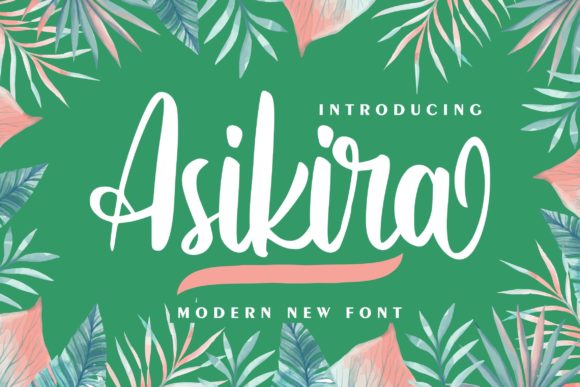
Introducing Asikira Font: The Bold and Beautiful Handwritten Font
Are you tired of using the same old fonts in your design projects? Do you want to add a touch of uniqueness and personality to your work? Look no further than Asikira Font, a bold and beautiful handwritten font that is sure to make your designs stand out.
What is Asikira Font?
Asikira Font is a carefully crafted handwritten font that boasts an incredibly authentic feel. Its unique and elegant design makes it perfect for a wide range of design projects, from branding and advertising to packaging and digital media.
Key Features of Asikira Font
- Bold and Beautiful: Asikira Font is a bold and beautiful font that is sure to grab attention. Its elegant design and flowing lines make it perfect for creating stunning headlines and titles.
- Authentic Feel: Asikira Font has an incredibly authentic feel that will make your designs look like they were created by a professional. Its unique and handmade design ensures that every letter and character is distinct and full of character.
- Versatile: Asikira Font is a versatile font that can be used in a wide range of design projects. Whether you’re creating a logo, brochure, or website, this font is sure to make your designs stand out.
- Easily Readable: Despite its bold and elegant design, Asikira Font is easily readable, even at small sizes. This makes it perfect for body text and other applications where readability is key.
Benefits of Using Asikira Font
Using Asikira Font in your design projects can have a number of benefits. Here are just a few:
- Unique and Memorable: Asikira Font is a unique and memorable font that will help your designs stand out from the crowd. Its bold and beautiful design ensures that your message will be noticed and remembered.
- Professional Look: Asikira Font has a professional and polished look that will elevate your designs to the next level. Its authentic feel and elegant design make it perfect for creating high-end designs.
Tips for Getting the Most Out of Asikira Font
Here are a few tips for getting the most out of Asikira Font:
- Use it Sparingly: While Asikira Font is a beautiful font, it’s best used sparingly. Consider using it for headlines and titles, and a more traditional font for body text.
- Experiment with Colors: Asikira Font looks great in a wide range of colors. Experiment with different colors and combinations to find the one that works best for your design.
- Pair it with Other Fonts: Asikira Font can be paired with other fonts to create a unique and interesting design. Consider pairing it with a sans-serif font for a bold and modern look.
Common Uses for Asikira Font
Asikira Font is a versatile font that can be used in a wide range of design projects. Here are a few common uses:
- Branding and Advertising: Asikira Font is perfect for creating bold and eye-catching branding and advertising materials. Its unique design ensures that your message will be noticed and remembered.
- Packaging: Asikira Font is a great choice for packaging design. Its elegant design and flowing lines make it perfect for creating labels, packaging, and other materials.
- Digital Media: Asikira Font can be used in a wide range of digital media, including websites, social media graphics, and email marketing campaigns.
Asikira Font is a bold and beautiful handwritten font that is sure to make your designs stand out. Its unique and authentic feel ensures that your designs will look professional and polished, while its versatility and readability make it perfect for a wide range of design projects. Whether you’re creating branding and advertising materials, packaging, or digital media, Asikira Font is a great choice.
- What is Asikira Font?
- Asikira Font is a bold and beautiful handwritten font with an incredibly authentic feel.
- What are the benefits of using Asikira Font?
- The benefits of using Asikira Font include its unique and memorable design, professional look, time-saving, and cross-platform compatibility.